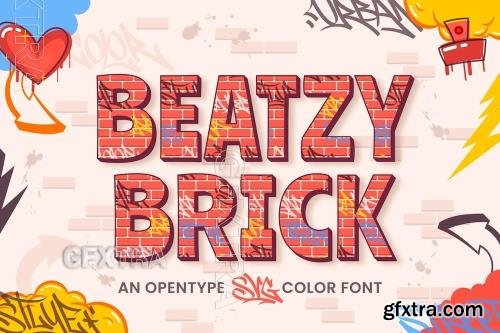
Beatzy Brick font
Beatzy Brick is a bold, urban font inspired by the raw energy of graffiti and street culture. Its brick-like structure and rugged, hand-sprayed aesthetic make it perfect for hip-hop branding, streetwear, and ghetto-inspired designs. With a mix of edgy attitude and artistic expression, Beatzy Brick brings an authentic, rebellious vibe to any project